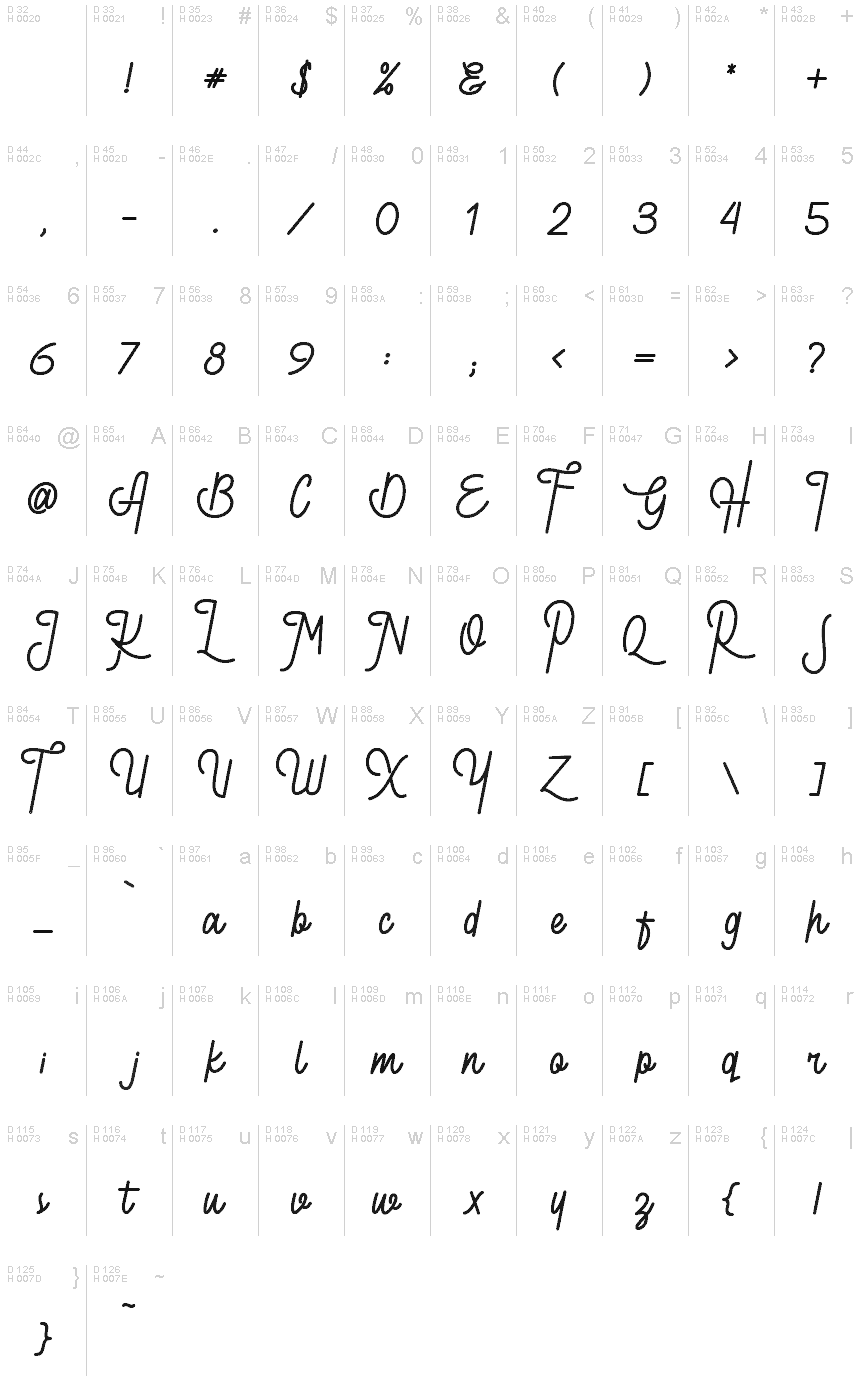
Guthers Textured_DEMO
Introducing, Guthers, monoline script font. Perfect for logotype, headline, apparels, quotes, posters, labels with vintage and exclusive feels.
1. Uppercase and lowercase characters
2. Supports international languages
3. Features: Uppercase, Lowercase, numeral & punctuation, multilanguage, stylistic alternates, and ligatures